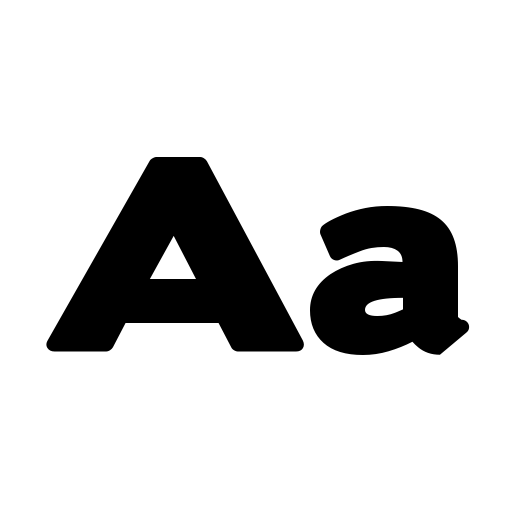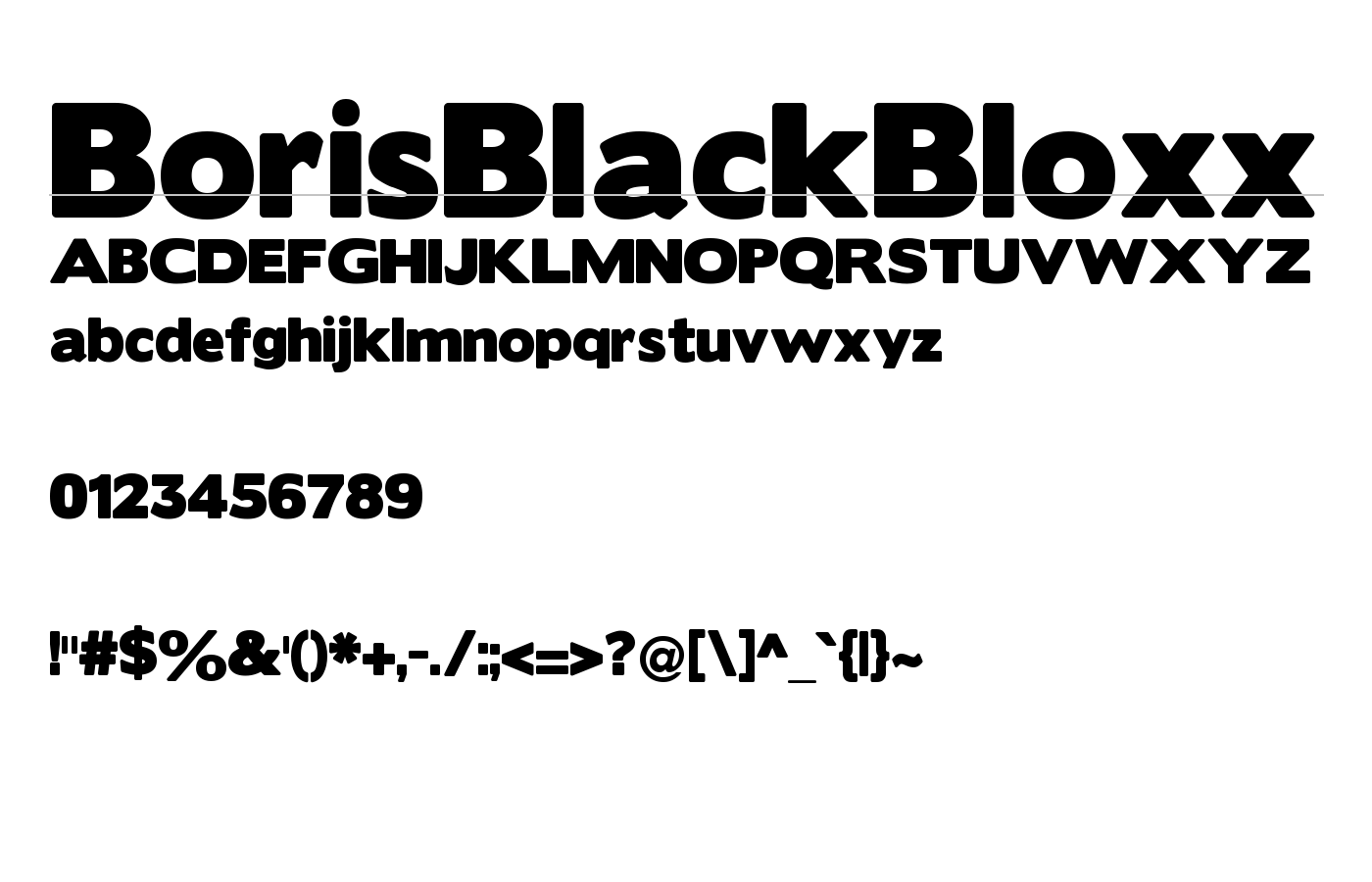
BorisBlackBloxx is a bold, geometric sans serif font with heavy weight and wide proportions, offering strong visual impact. Its blocky letterforms and uniform stroke widths create a sturdy, modern feel ideal for headlines, logos, and branding that demand attention. This font works well in edgy, playful, and contemporary designs where clear readability and a commanding presence are key.
BorisBlackBloxx Font
About BorisBlackBloxx Font